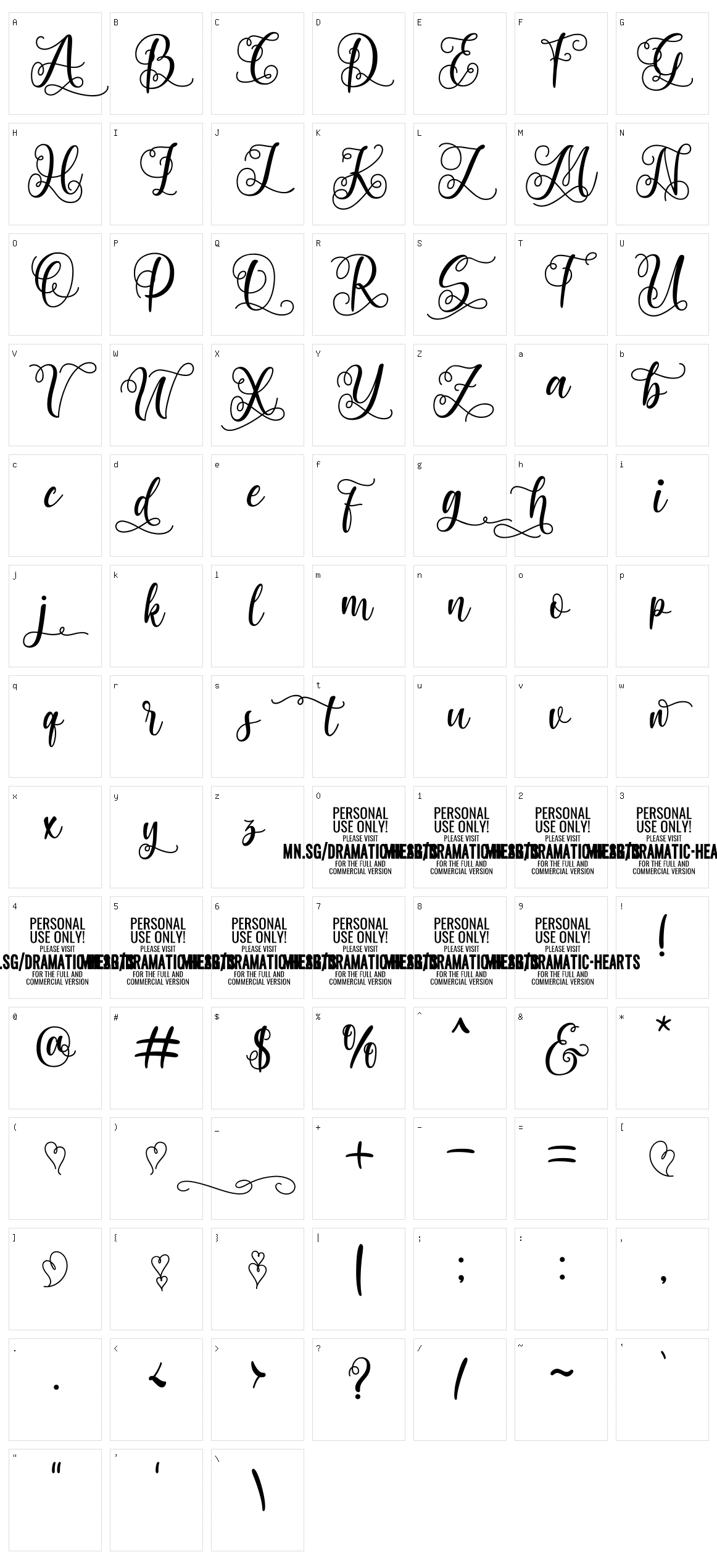
Dramatic Hearts is a lovely script typeface.
A romantic valentine typeface, Dramatic Hearts flows with love and passion.
It has beautiful, swashy capital letters and its charming, hand-drawn character gives any project a true and genuine appearance.
Use the parenthesis characters ( ) [Â ] { } for decorative heart symbols.
Use underscore _ anywhere in a word for swashes.
Example: Restau_rant
Use multiple underscore for different swashes.
Example: Crea___tives
The Dramatic Hearts family consists of eight styles:
Regular and Bold, the swirly Swash and Swash Bold, plus each style as a slanted Italic.
The font is built with advanced OpenType functionality and has a guaranteed top-notch quality, containing stylistic and contextual alternates, ligatures and more features; all to give you full control and customizability.
It has extensive lingual support, covering all Latin-based languages, from North Europe to South Africa, from America to South-East Asia.
It contains all characters and symbols you'll ever need, including all punctuation and numbers.